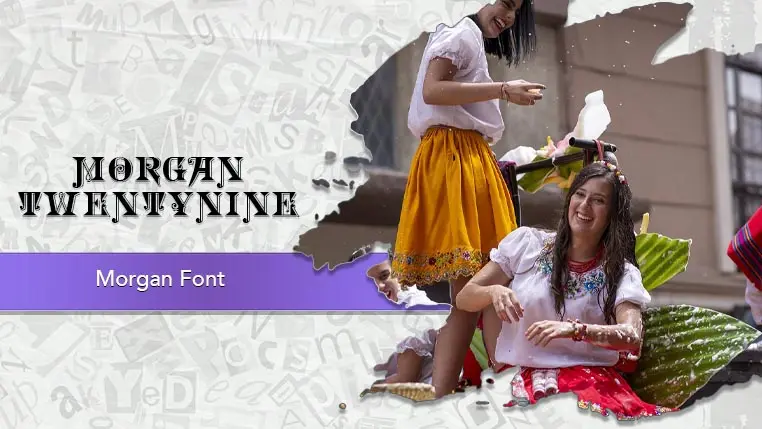
The Morgan font family may be ideal for you if you enjoy working on an artistic design project. The lively, expressive look of this typeface, which was created by Typographer Mediengestaltung, makes it ideal for Greeting Cards and Invitations, Typography Quotes and Social Media Graphics And Branding for Creative Businesses. You can also use on Posters and Banners For events or promotions where a relaxed and friendly tone is desired. and other light-hearted visual projects.
TwentyNine are the one primary font styles of the Morgan font family. You may build dynamic, visually appealing text layouts with the distinct flair that each style offers. With crisp, readable lines and a relaxed tone.